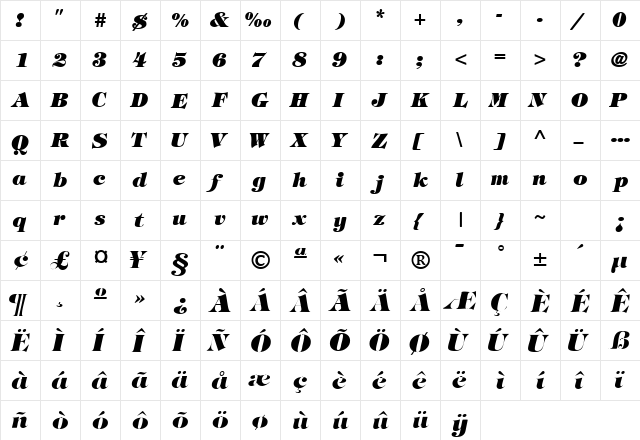
SophisticateBlackSSK Italic
Design Context for SophisticateBlackSSK Typeface
SophisticateBlackSSK is a composed and adaptable typeface that performs quietly and consistently across a wide range of design contexts. Its italic angle brings a sense of urgency and motion to the letterforms.
Pro Tip: Try SophisticateBlackSSK for annotation and caption copy alongside an upright companion — the contrast in angle creates a dynamic but ordered typographic system.